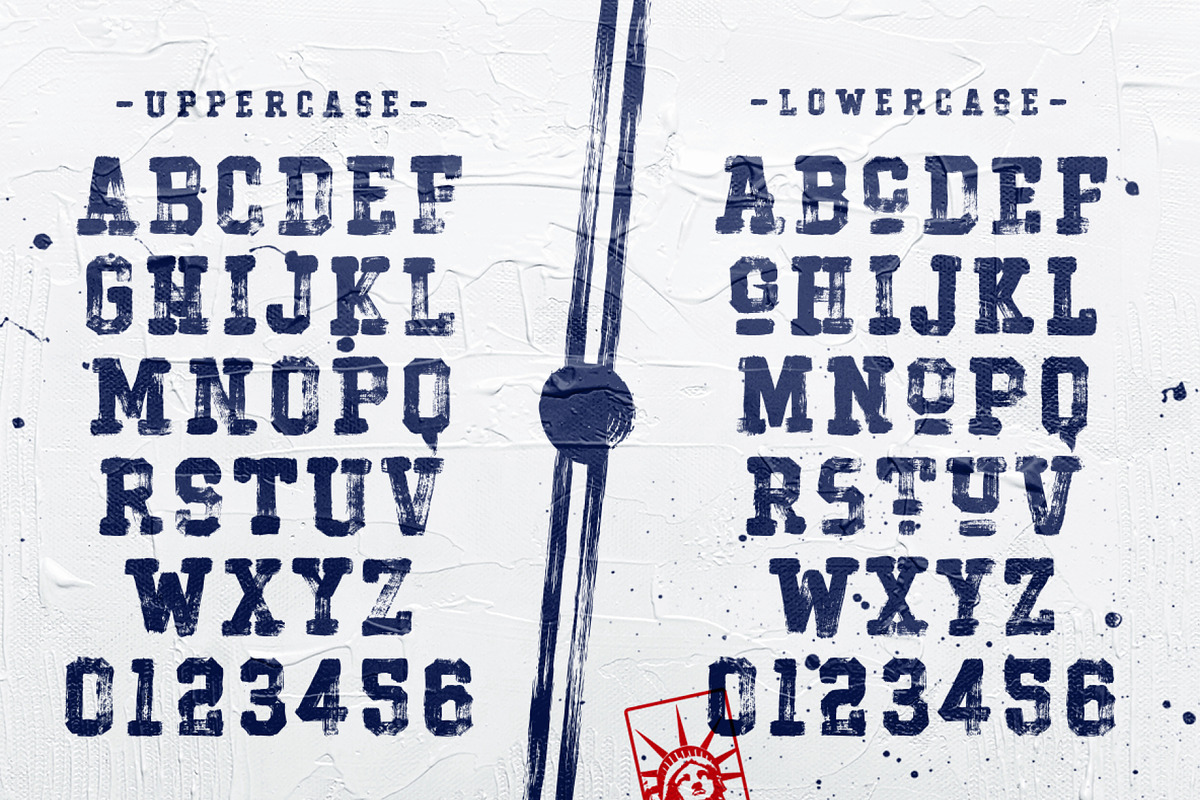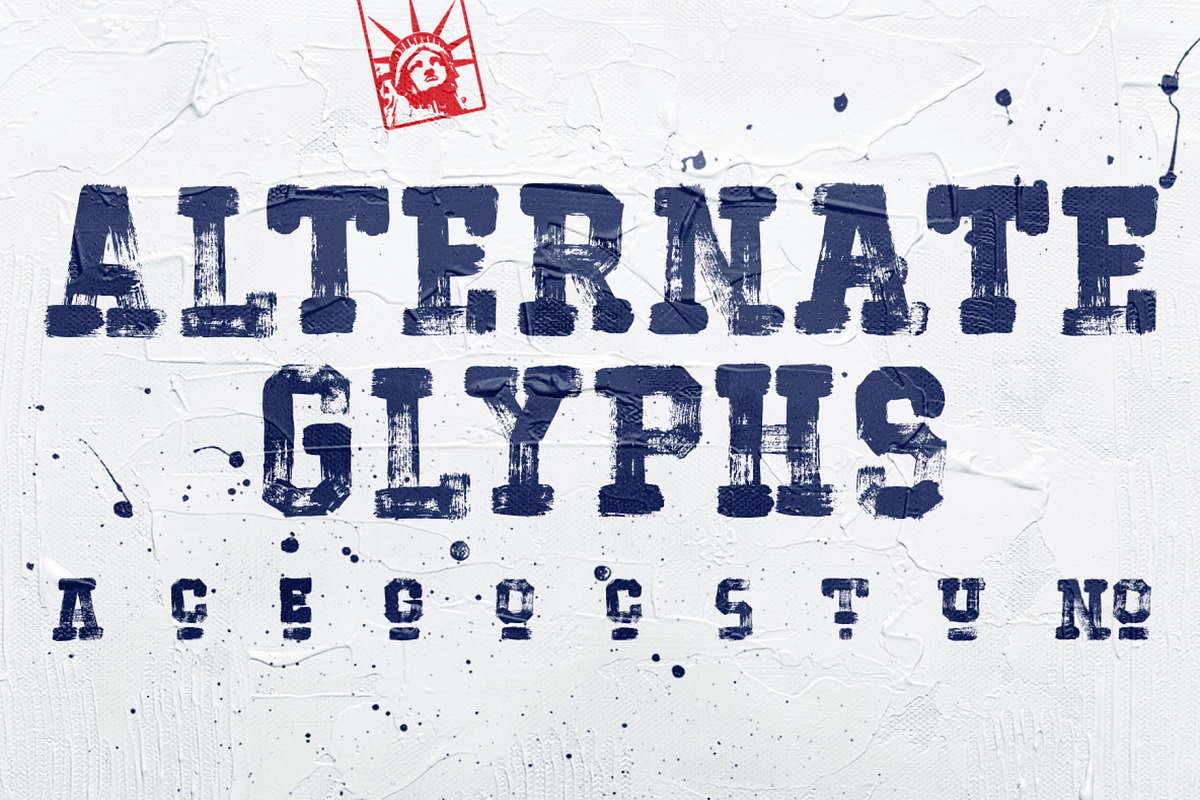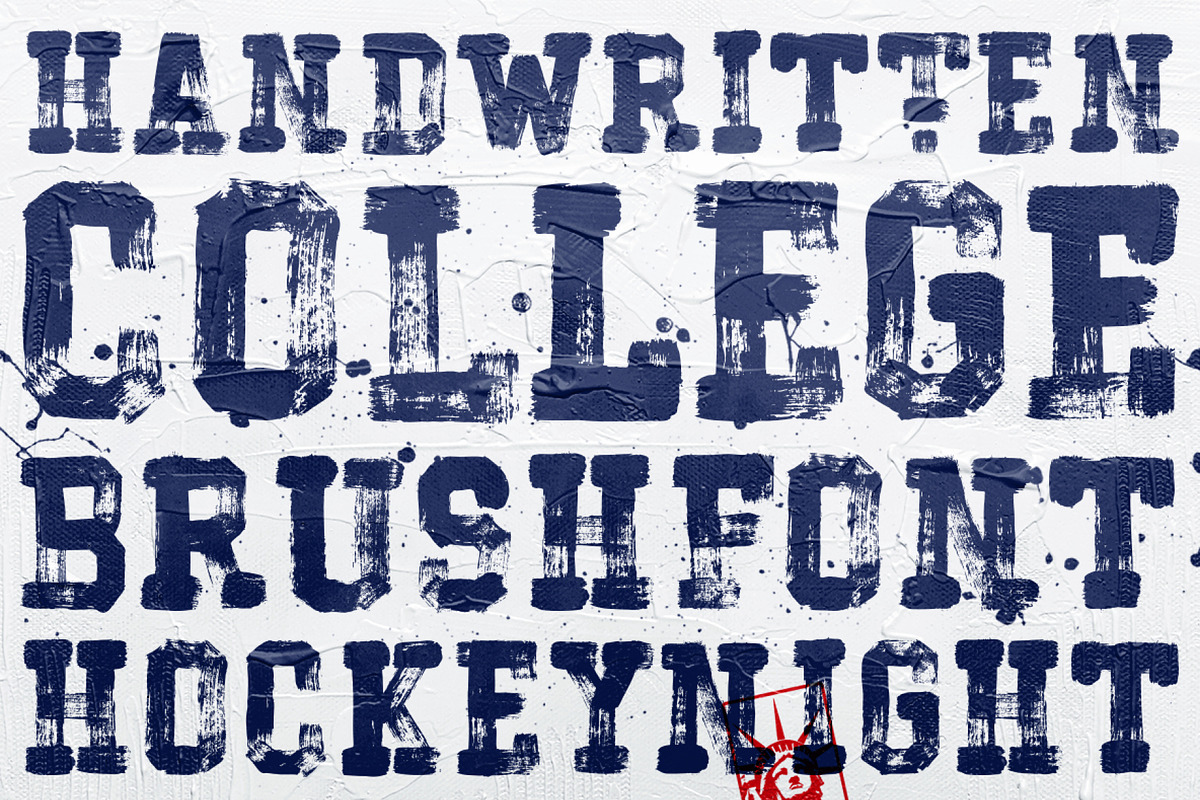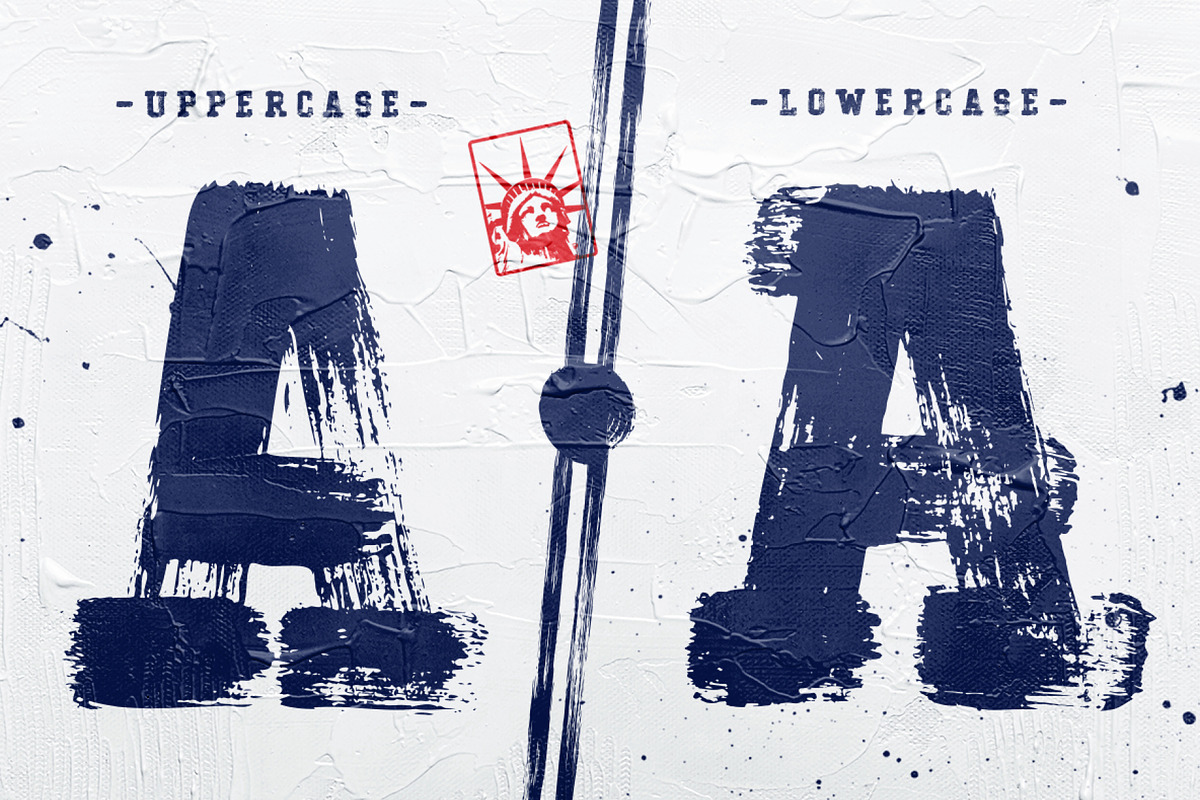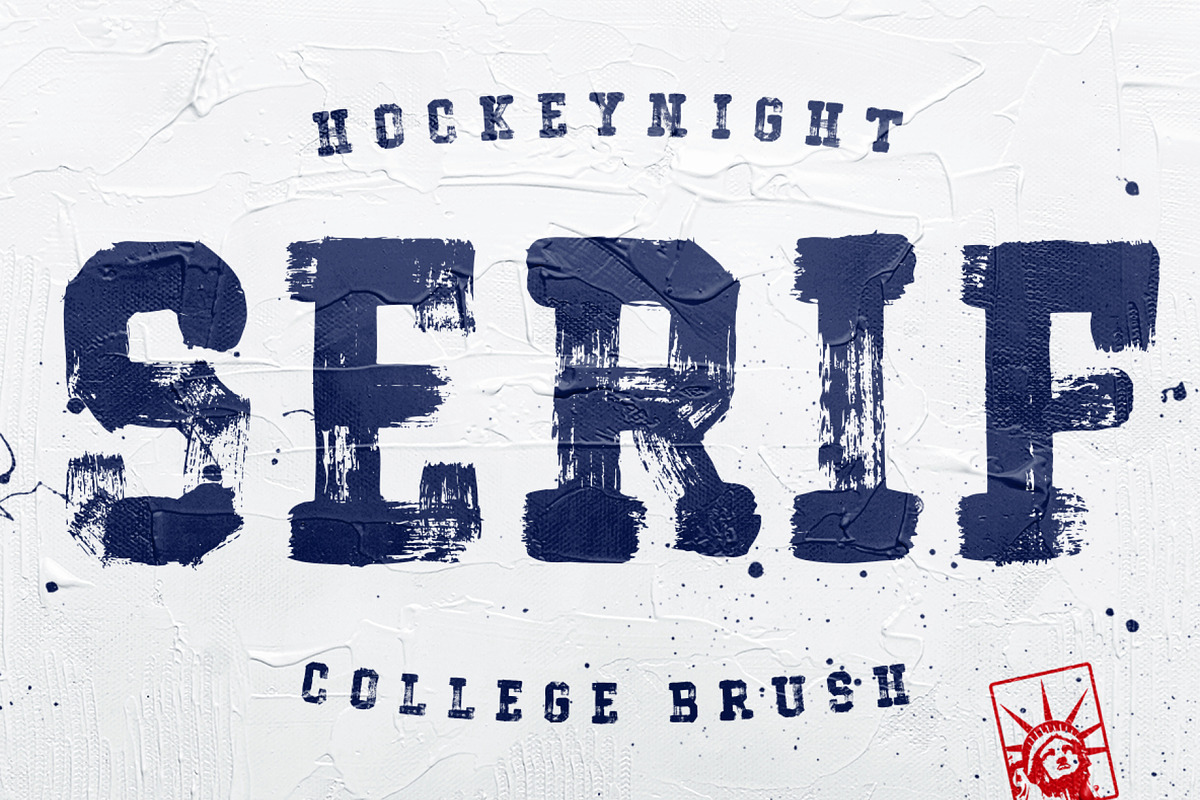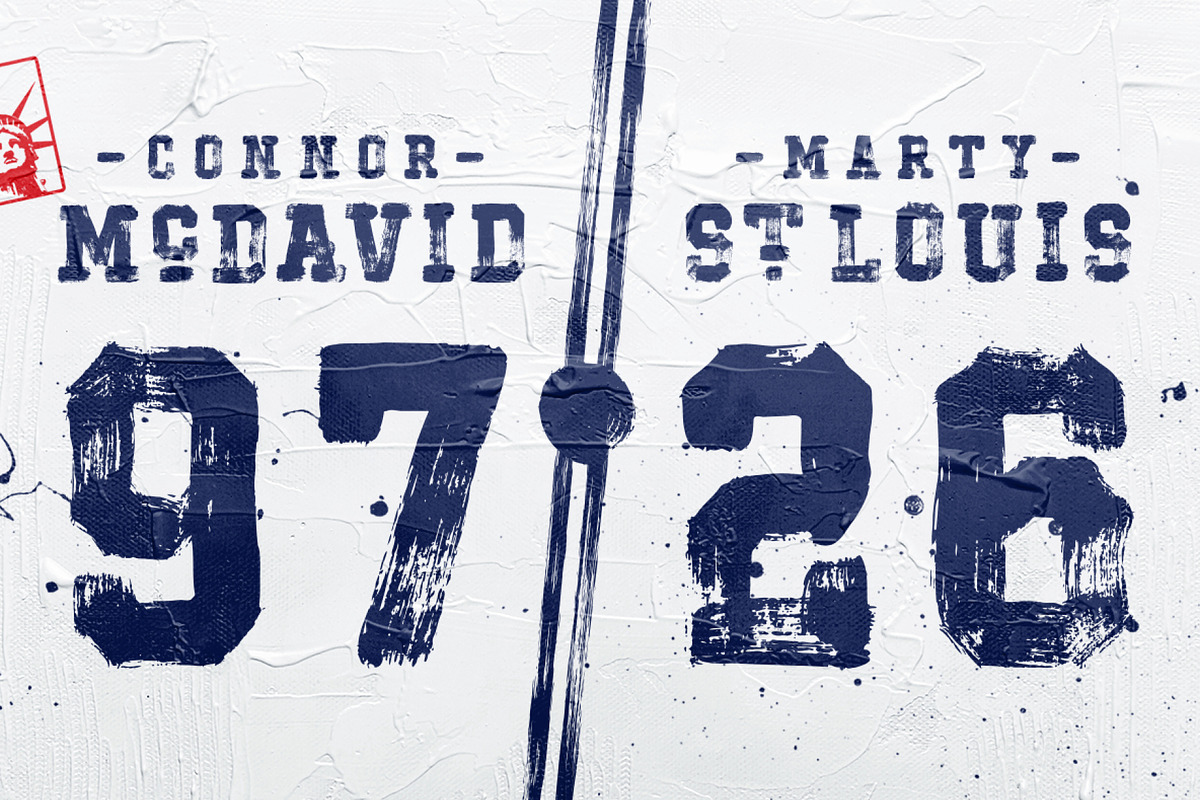
Hockeynight Serif Brush
"Hockeynight Serif Brush" is the handwritten version of my "Hockeynight Serif". It's a contemporary college-sports font with the little twist – that its a brush font. With its detailed brushmarks it is designed to go big and bold. "Hockeynight Serif Brush" is an uppercase font and it offers alternate glyphs as lowercases. It pairs perfect with my other "Hockeynight" Fonts – Check it out!